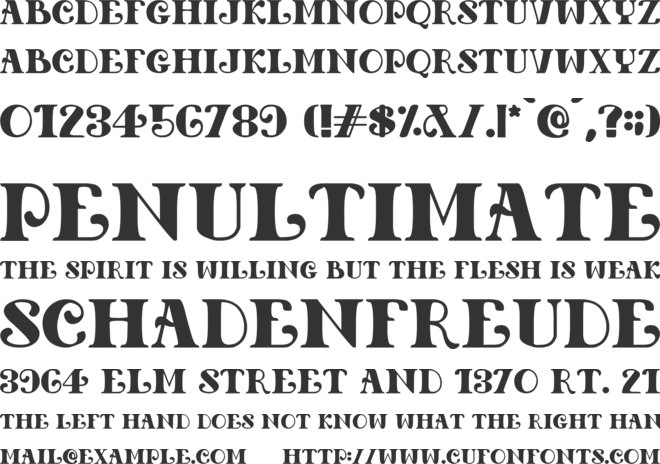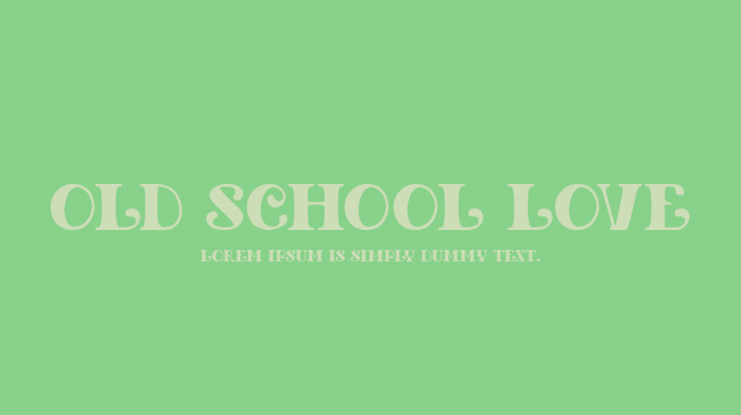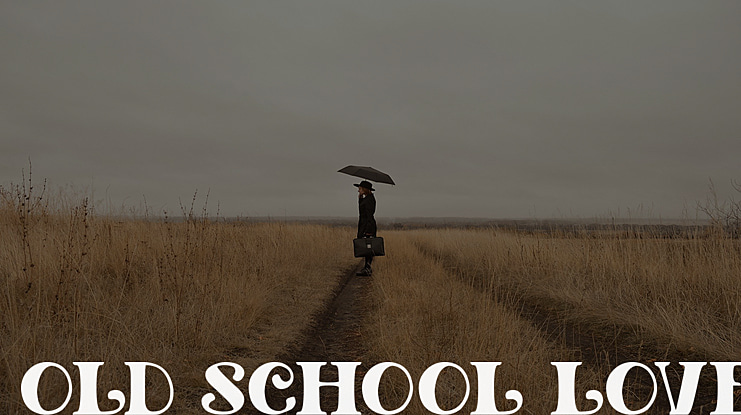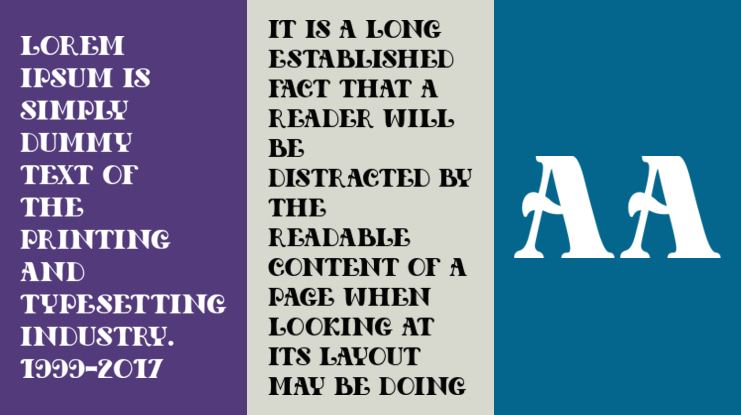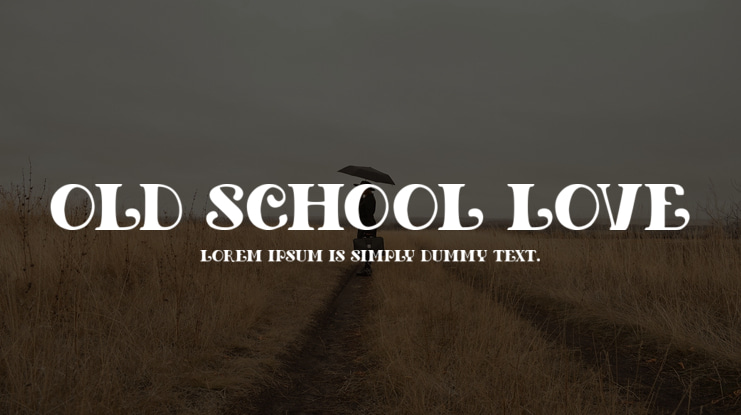
Old School Love Font Family
Old School Love is a nostalgic, retro display font. It is perfect for giving a charming, hand-made feel to each of your projects.